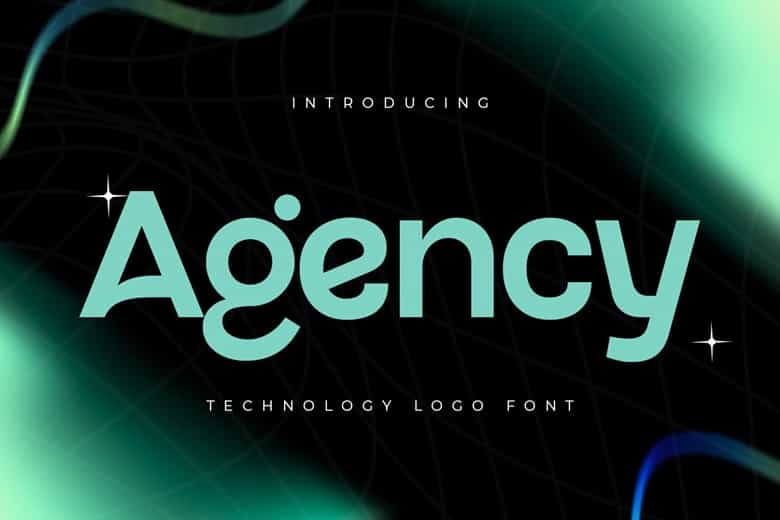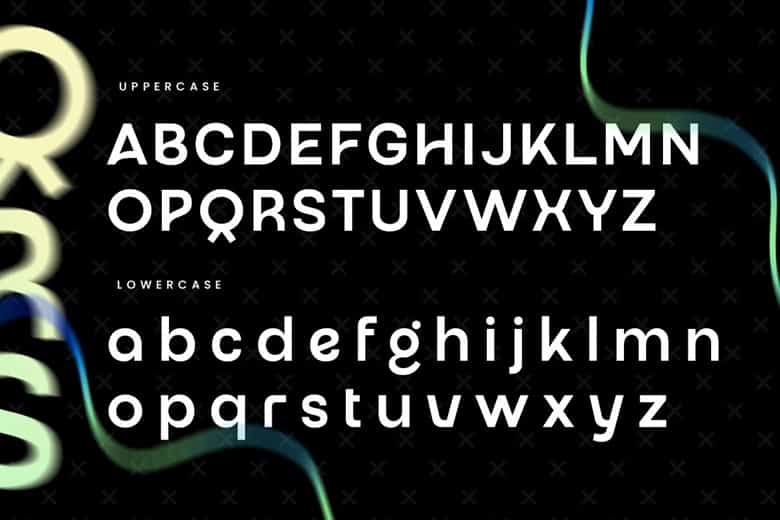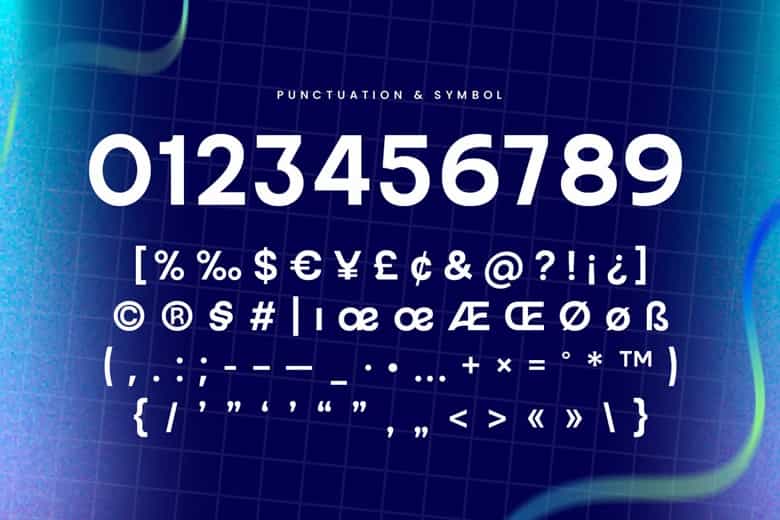
Agency is a great sans font to use in order to create a logo that combines technology with branding in one clean design. Meant for business and technological applications of the current world, it provides a clean and corporate style that will not go unnoticed. Best suited for logos, websites, branding purposes, Agency makes use of elements that are very much in the future.